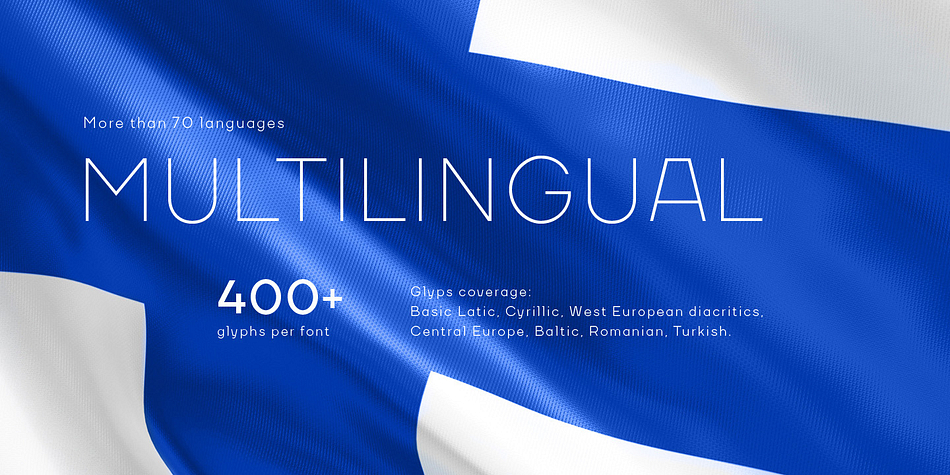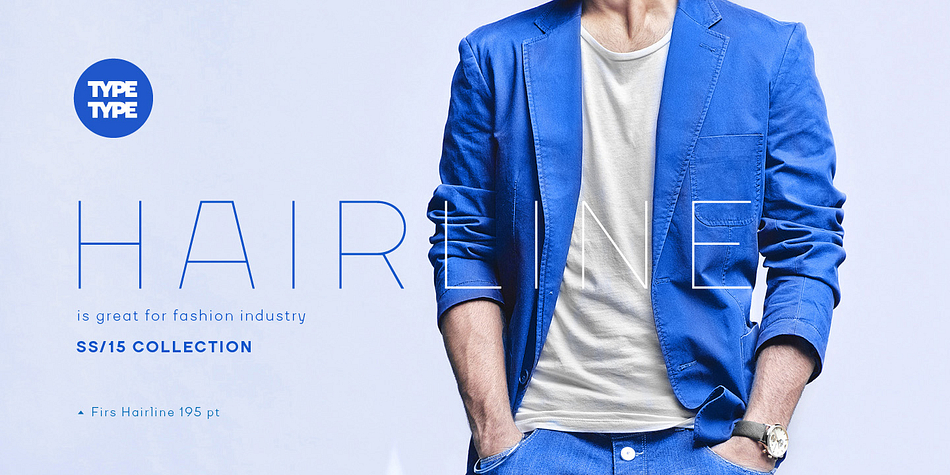
TT Firs
Designed by Ivan Gladkikh, TT Firs is a sans serif font family. This typeface has eighteen styles and was published by Typetype.
Firs is a universal sans-serif font family, designed in a modern Scandinavian style.
Firs has a Nordic character and is a versatile tool in design.
This font family has an extensive weights coverage: Hairline, Thin, ExtraLight, Light, Regular, Medium, Bold, ExtraBold, Black and corresponding Italics.
Large variation tracings allow to solve the most ambitious tasks.
Firs is very calm and neutral.
It is perfect for all your needs and goals.
It is also great for the modern media environment: mobile applications and websites.
You are on the page of the old display version of the TT Firs font.
In 2018, we released an entirely new, completely redesigned, and significantly expanded version of the typeface called TT Firs Neue. In addition to great language support, TT Firs Neue has small capitals, stylistic alternates, ligatures, old-style figures and twenty-three other useful OpenType features.
Firs - universal sans-serif font family, designed in a modern Scandinavian style. Firs has a Nordic character and is a versatile tool in design.
This font family has an extension of weights coverage: Hairline, Thin, ExtraLight, Light, Regular, Medium, Bold, ExtraBold, Black and Italics. Large variation tracings allow to solve the most ambitious tasks.
Firs is very calm and neutral. Perfect for all your needs and goals. Great for the modern media environment: mobile applications and websites.